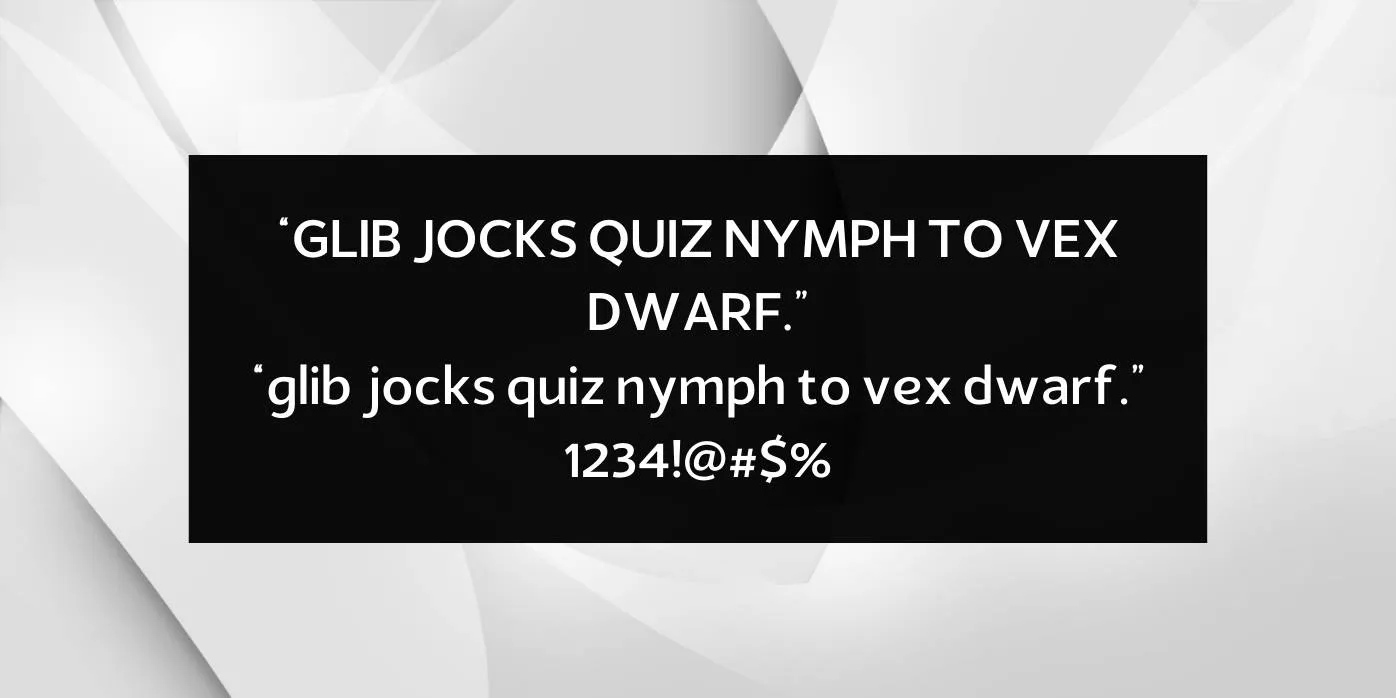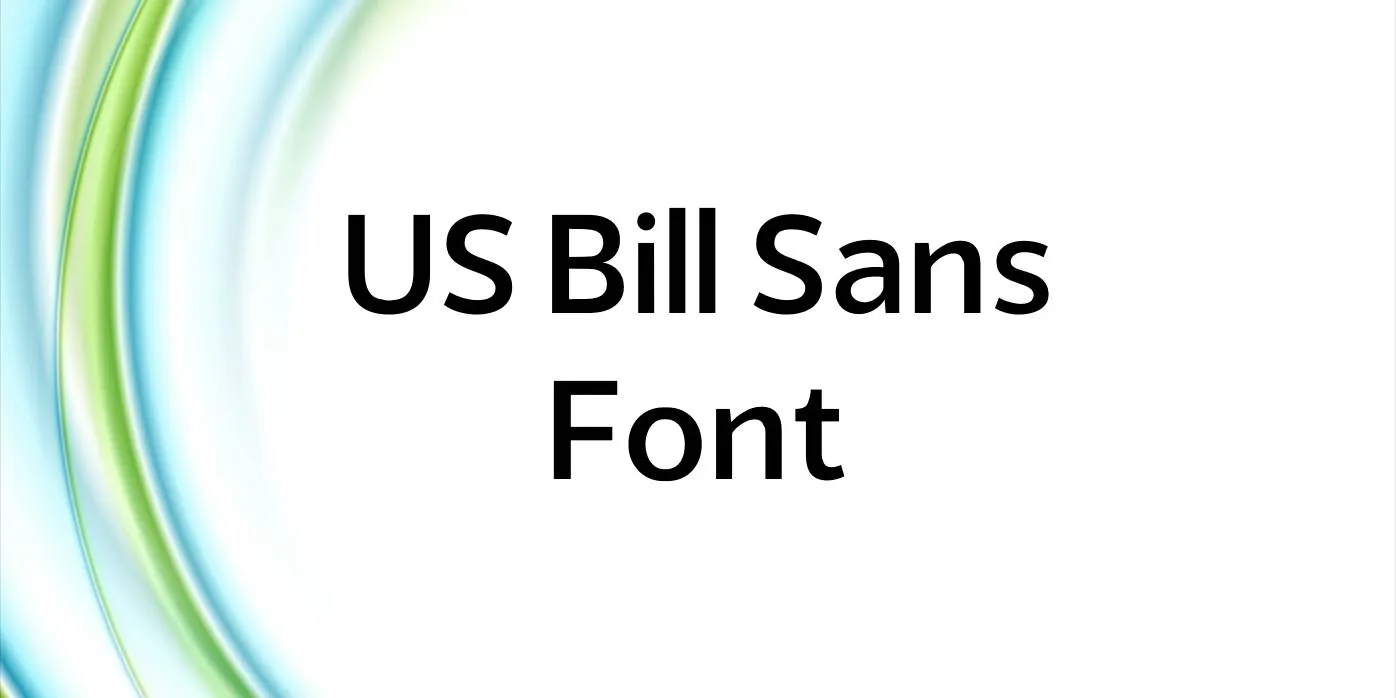
US Bill Sans Font
US Bill Sans Font is a sans serif typeface created by American Type Founders in 1904. The design is based on the earlier Grotesque No. 9 by ATF, but with a simpler lowercase and larger x-height. This Font was widely used in the United States during the early part of the twentieth century, particularly for government documents.
It fell out of favor in the 1930s but was revived in the 1960s by the US government, which used it for official publications. It also supports all types of operating systems like mac, Linux, etc. The typeface family is a little bit closer to weezer Font, therefore you can combine them for making something really cool. The typeface is currently used by a number of businesses and organizations, including the US government.